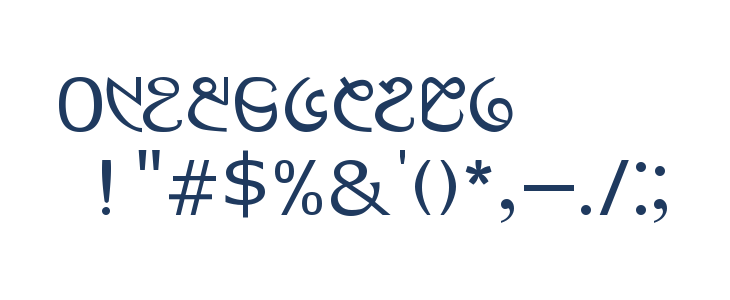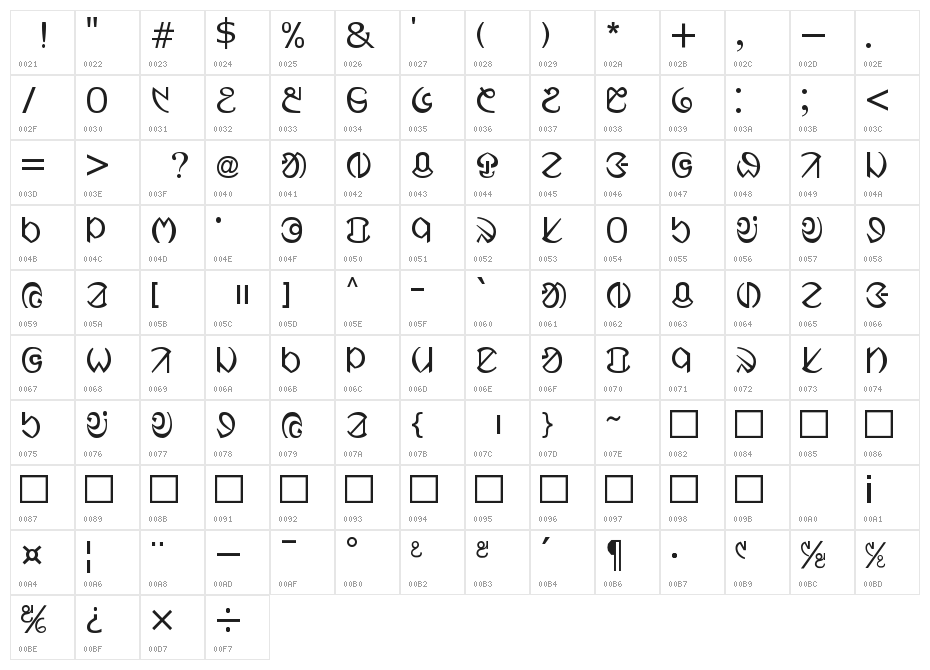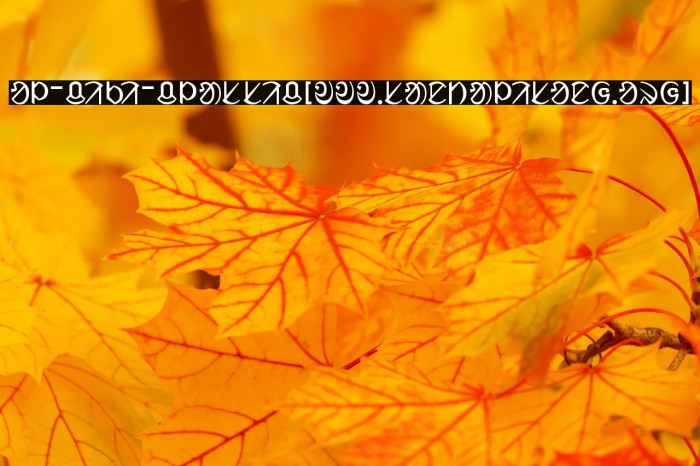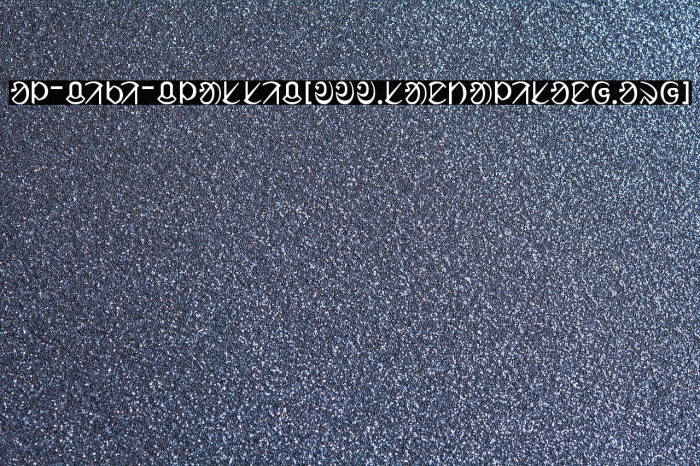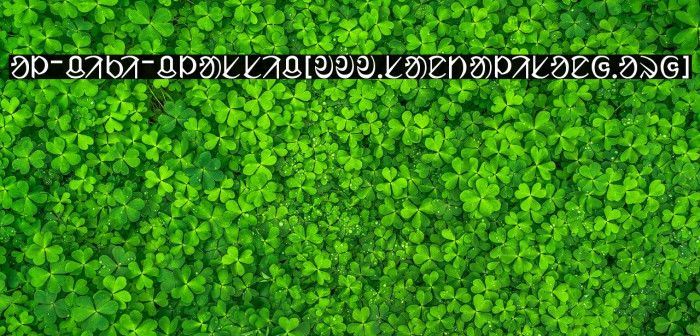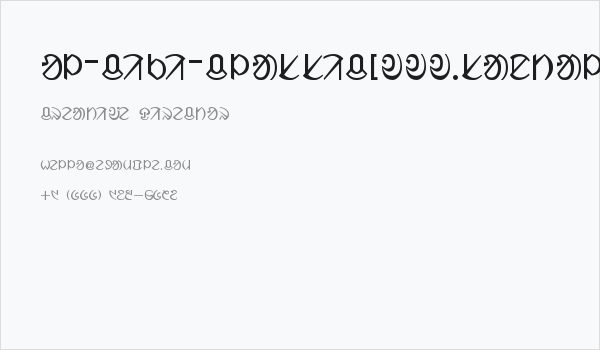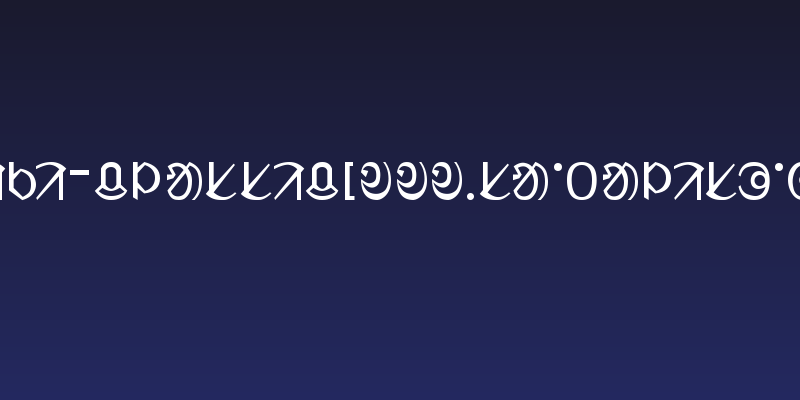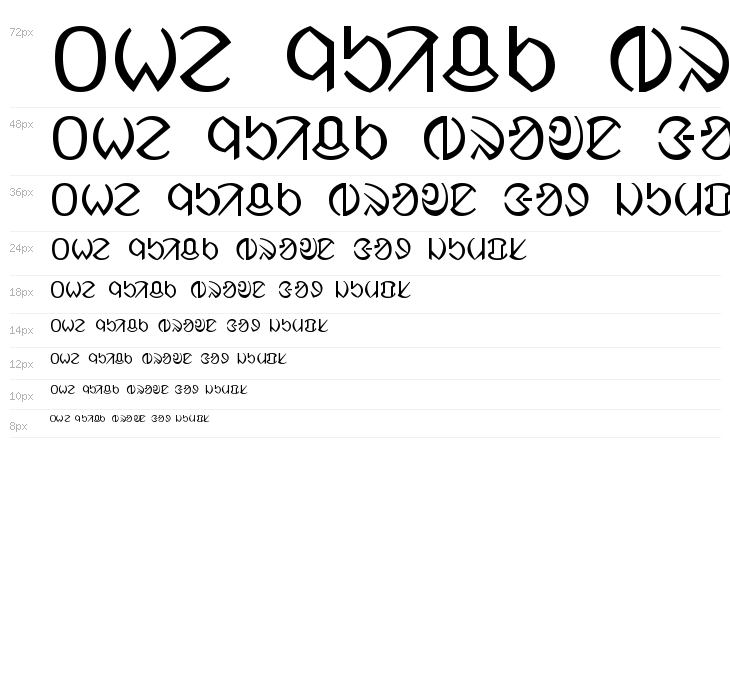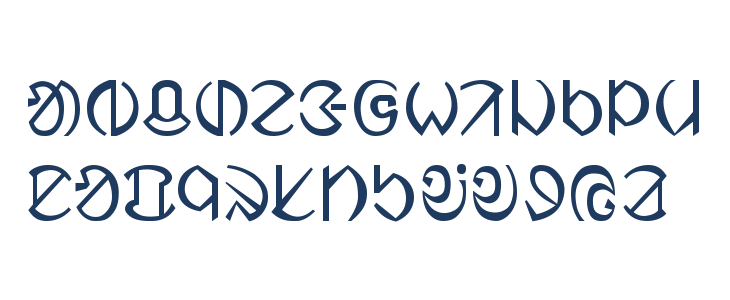
ol_ciki_classic[www.santalisong.org] Font
ol_ciki_classic[www.santalisong.org] Description
This font features a unique and decorative style with intricate curves and loops, reminiscent of traditional scripts. The characters are bold and have a strong presence, making them suitable for attention-grabbing designs. The uppercase and lowercase letters maintain a consistent style, with a playful yet sophisticated appearance. The numerals and special characters are designed to complement the overall aesthetic, ensuring uniformity across all elements. This font is ideal for projects that require a touch of elegance and creativity, such as invitations, posters, or branding materials.